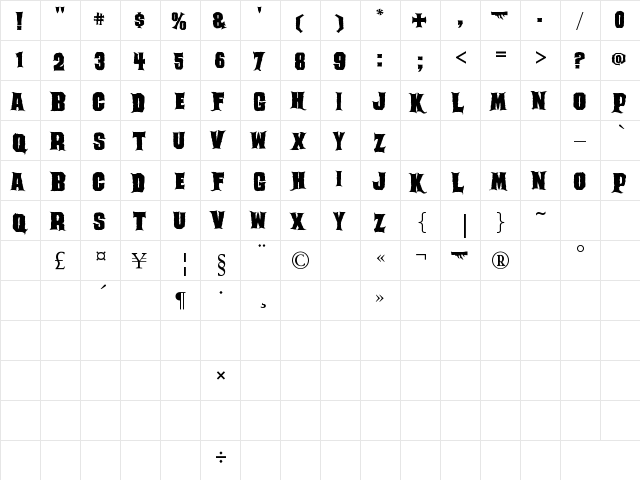
Ghoulish Regular
| Foundry | SinisterFonts.com |
| Designer | Gary Pullin |
Design Context for Ghoulish Typeface
Ghoulish is a composed and adaptable typeface that performs quietly and consistently across a wide range of design contexts.